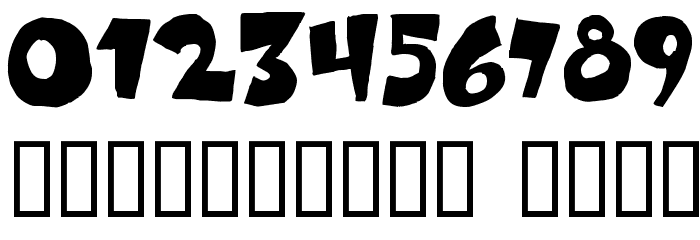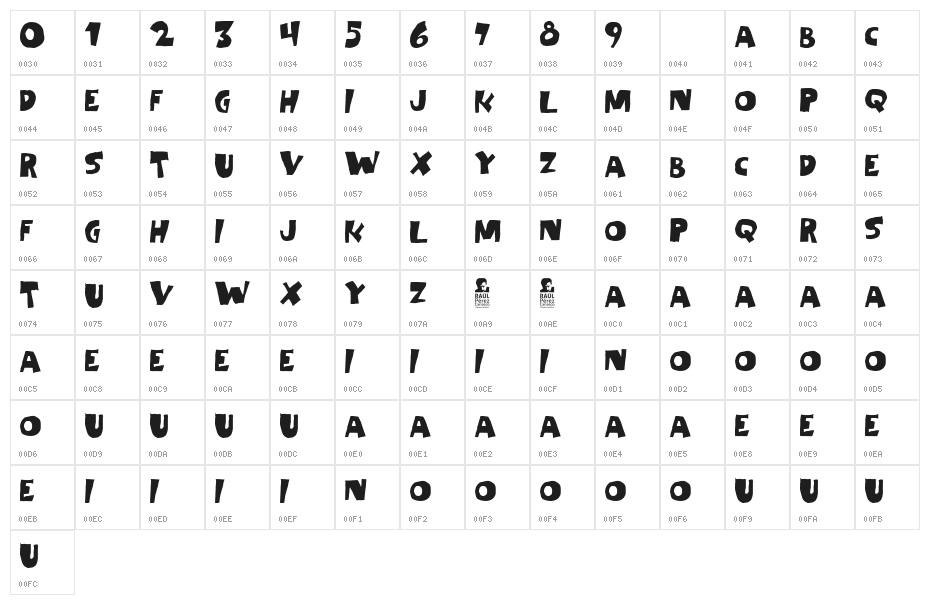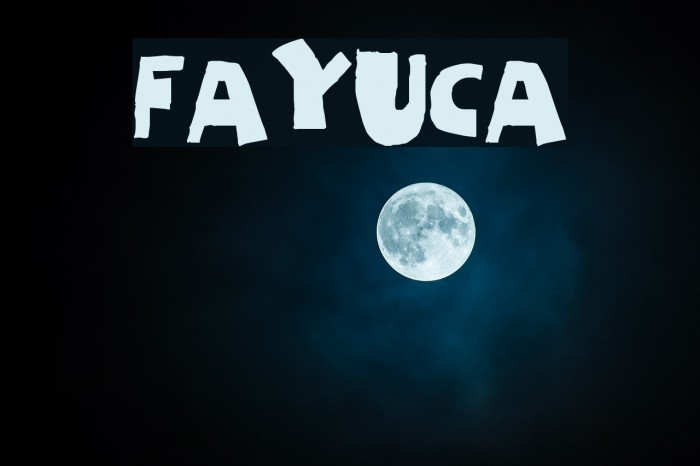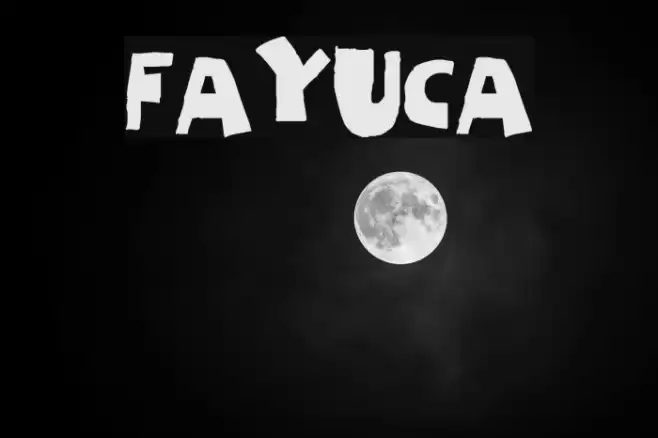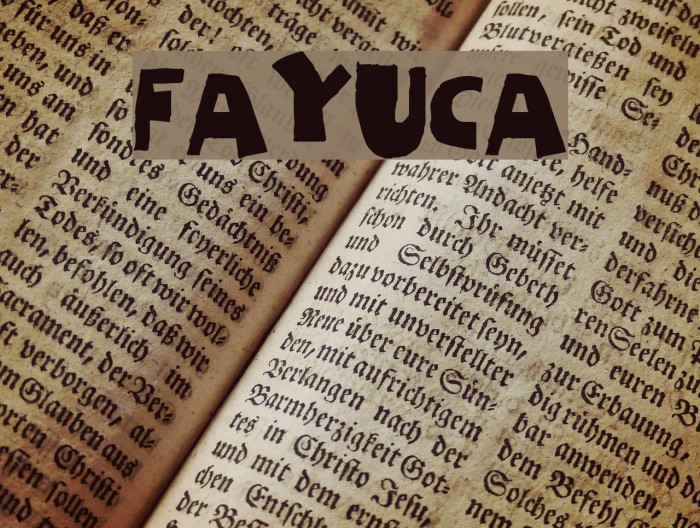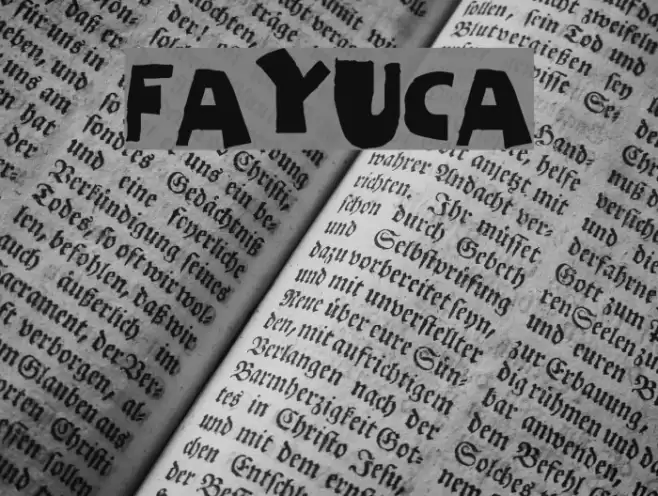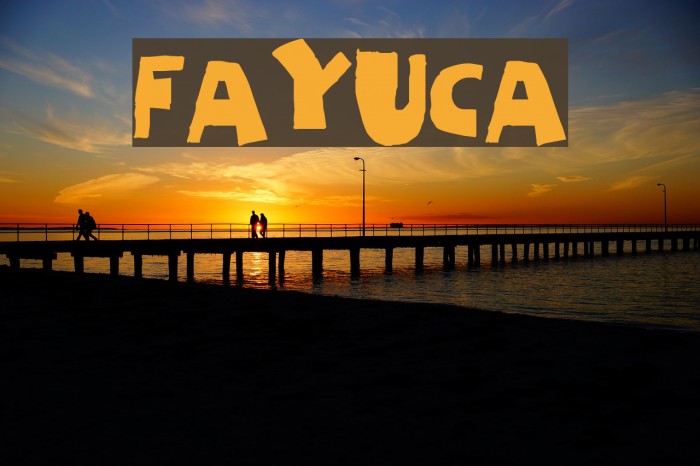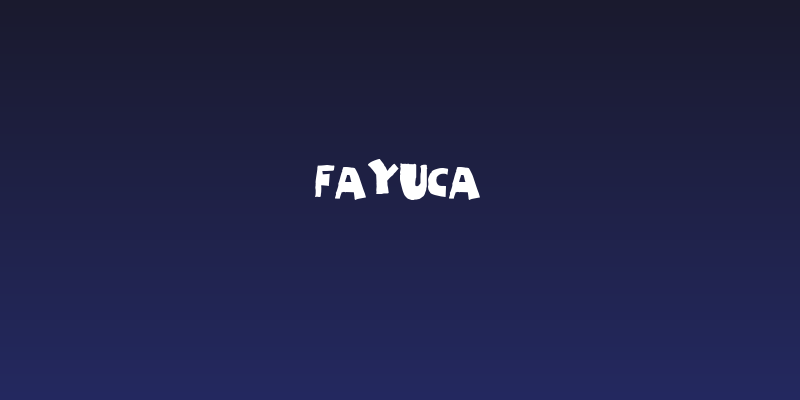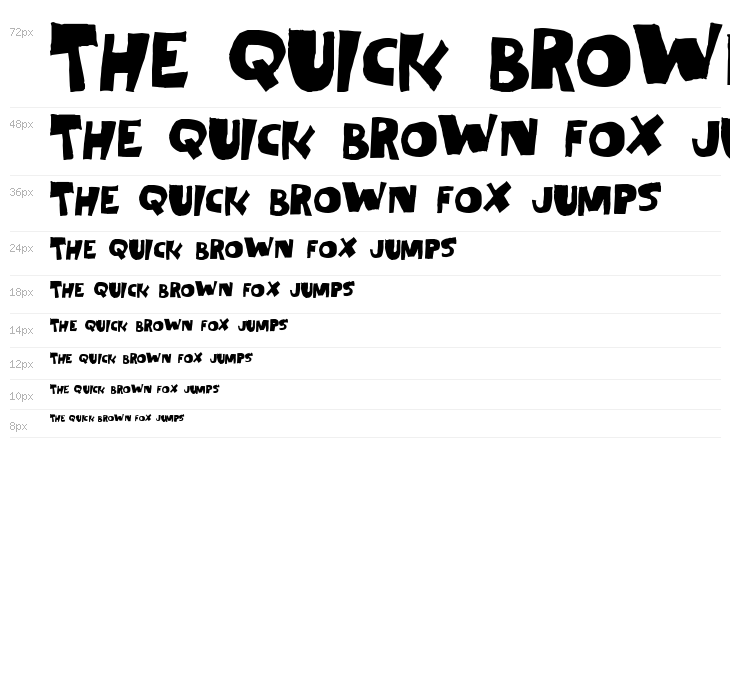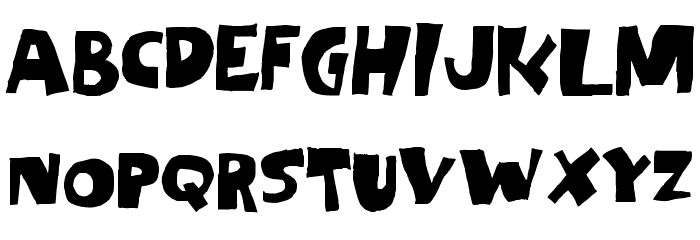
fayuca Font
fayuca Description
This font features a bold and dynamic style with a hand-drawn appearance. The letters are irregular and slightly tilted, giving a sense of movement and energy. The strokes are thick and uneven, contributing to a playful and informal look. The characters are closely spaced, enhancing the compact and robust feel of the text. This font is particularly suitable for creative and artistic projects where a casual and lively tone is desired. Its unique style makes it stand out, making it ideal for attention-grabbing headlines or titles.
| Overall Style | Playful, Artistic |
| Proposed Projects | Ideal for posters, album covers, children's books, and creative branding projects. |